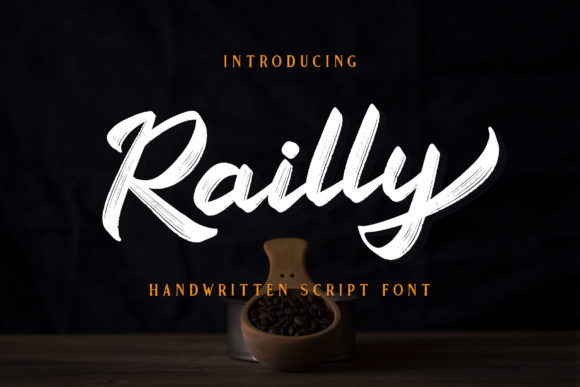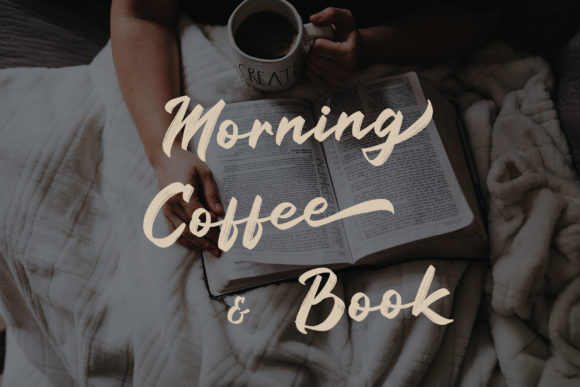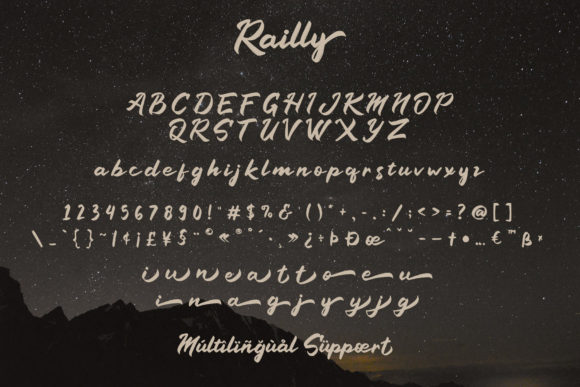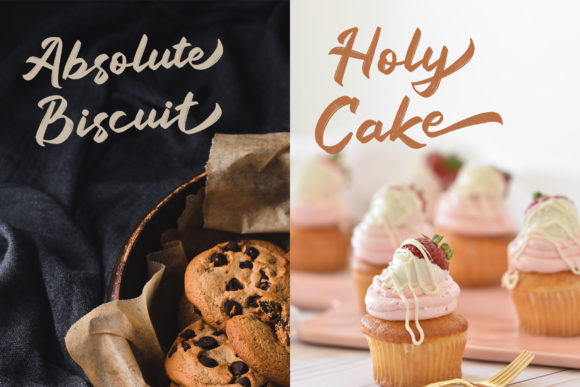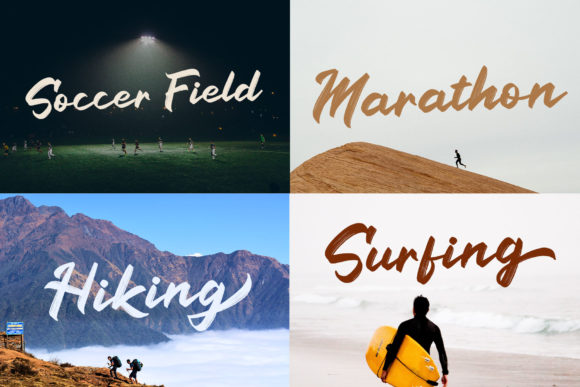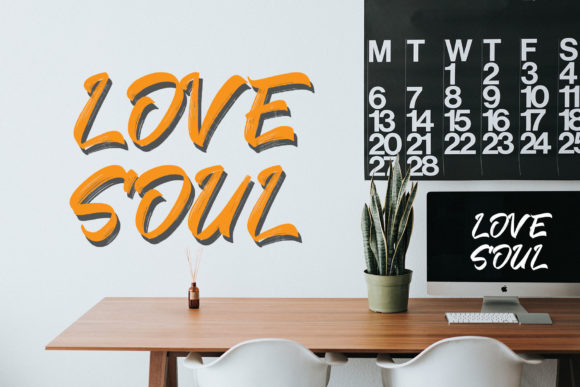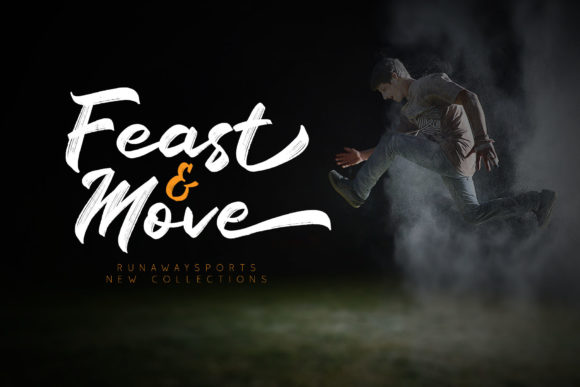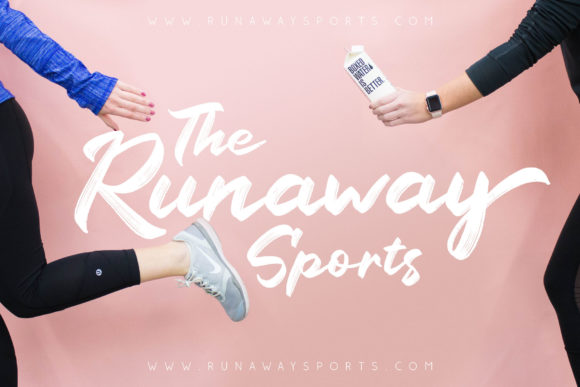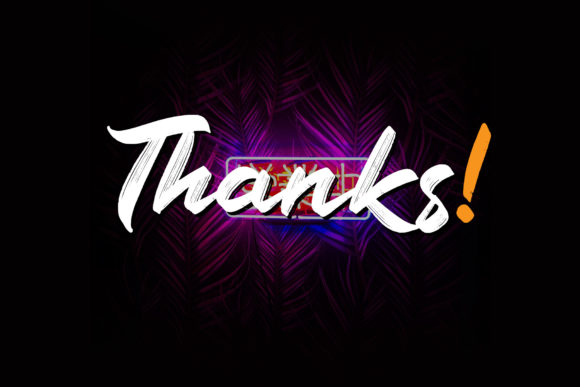
HomeScript FontsRailly Font Script Fonts Railly Font FacebookXPinterestWhatsApp Railly Font Poster 2 Railly Font Poster 3 Railly Font Poster 4 Railly Font Poster 5 Railly Font Poster 6 Railly Font Poster 7 Railly Font Poster 8 Railly Font Poster 9 About Railly Font Railly is based on real handwriting, which gives this unique font an incredibly authentic vibe! DOWNLOAD ON CREATIVE FABRICAThis font is sold and delivered by Creative Fabrica. Font Canyon may earn a commission if you buy through this link. People also explored Quostige Font Leafinna Font Darlothes Font Freakland Font Honeyletter Font Rasputin Font Asyila Endah Font Bronson Font Hug Me Font 391 0 TagsRailly Font Previous articleRiver Script FontNext articleAmanda Font LEAVE A REPLY Cancel reply Comment: Please enter your comment! Name:* Please enter your name here Email:* You have entered an incorrect email address! Please enter your email address here Website: Save my name, email, and website in this browser for the next time I comment. Personal Use Free Lumber Personal Use Free Read more about this font Ancient Script Personal Use Free Read more about this font Burnstown Dam Personal Use Free Read more about this font Chandella Personal Use Free Read more about this font BLOG Top 7 Google Fonts Alternatives for Faster and Privacy-Friendly Web Design (2025) Top 7 Google Fonts Alternatives for Faster and Privacy-Friendly Web Design (2025) When it comes to web typography, Google Fonts has long been the go-to... The 10 Best Handwriting Fonts to Add Personality to Your Designs How to Install and Use Fonts on Windows, macOS, and Web Projects Best Fonts for T-Shirt Design – Top 2025 Picks